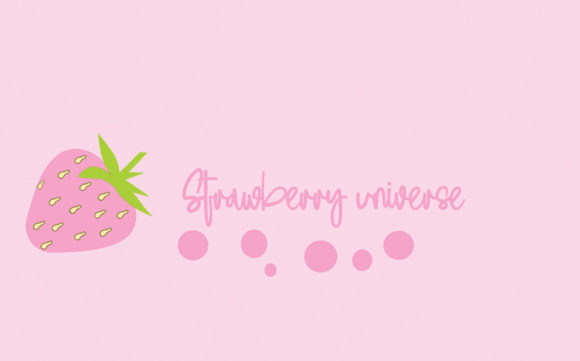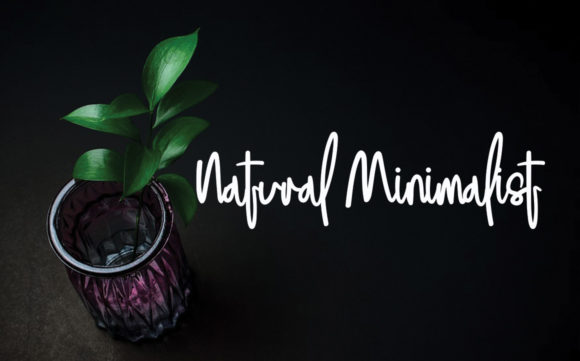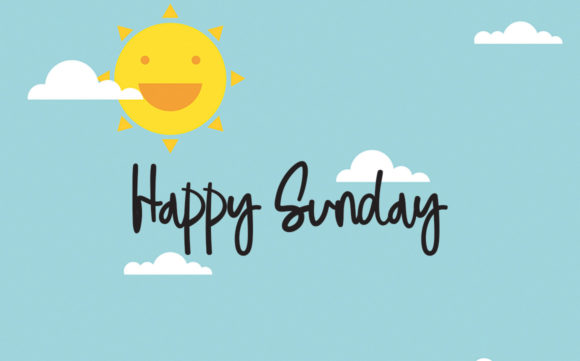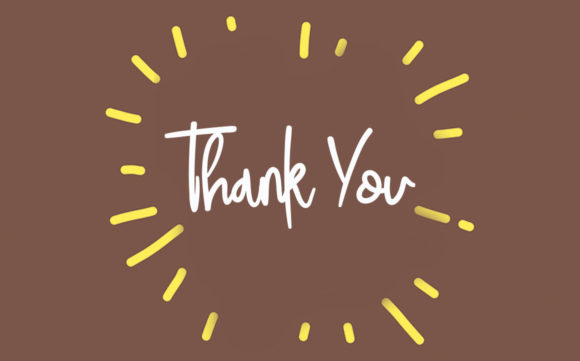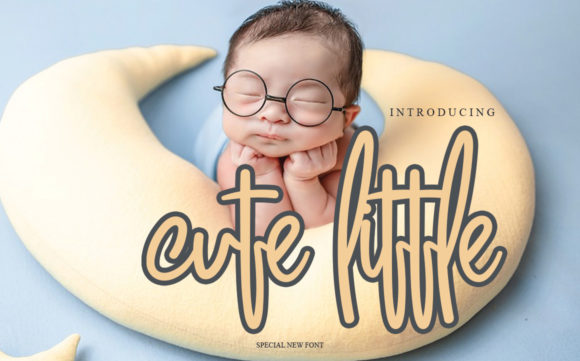
Cute Little Font: Add a Fun and Friendly Touch to Your Designs
Are you looking for a font that can add a playful and charming touch to your designs? Look no further than the Cute Little Font! This simple and flowing handwritten font is perfect for a variety of design ideas, and its adaptability makes it a great choice for designers and crafters alike.
What is Cute Little Font?
Cute Little Font is a beautiful, handwritten font that is designed to be both fun and friendly. Its simple and flowing design makes it easy to read and perfect for use in a variety of design projects, from greeting cards and invitations to blog posts and social media graphics.
Key Features of Cute Little Font
- Simple and flowing design: The Cute Little Font has a simple and flowing design that makes it easy to read and perfect for use in a variety of design projects.
- Adaptable: This font is highly adaptable and can be used in a variety of design ideas, from playful and fun designs to more serious and elegant designs.
- Handwritten style: The Cute Little Font has a handwritten style that gives it a personal and friendly touch, making it perfect for designs that need a human touch.
- Fun and friendly: This font is designed to add a fun and friendly touch to your designs, making it perfect for projects that need a playful and charming feel.
Uses for Cute Little Font
The Cute Little Font is a versatile font that can be used in a variety of design projects, including:
- Greeting cards and invitations: The Cute Little Font is perfect for use in greeting cards and invitations, adding a personal and friendly touch to your designs.
- Blog posts and social media graphics: This font is great for use in blog posts and social media graphics, adding a fun and friendly touch to your online content.
- DIY projects and crafts: The Cute Little Font is perfect for use in DIY projects and crafts, such as handmade cards, gift tags, and other paper crafts.
- Branding and packaging: This font can also be used in branding and packaging, adding a playful and charming touch to your brand’s identity.
Why Choose Cute Little Font?
There are many reasons why you should choose the Cute Little Font for your design projects. Here are just a few:
- Easy to read: The Cute Little Font is easy to read, making it perfect for use in designs where readability is important.
- Versatile: This font is highly versatile and can be used in a variety of design projects, from playful and fun designs to more serious and elegant designs.
- Unique and charming: The Cute Little Font has a unique and charming design that will add a personal and friendly touch to your designs.
Tips for Using Cute Little Font
Here are a few tips for using the Cute Little Font in your design projects:
- Use it in combination with other fonts: The Cute Little Font can be used in combination with other fonts to create a unique and interesting design.
- Experiment with different colors and textures: This font can be used with a variety of colors and textures to add depth and interest to your designs.
- Use it to add a personal touch: The Cute Little Font is perfect for adding a personal and friendly touch to your designs.
The Cute Little Font is a beautiful and versatile font that is perfect for designers and crafters alike. Its simple and flowing design makes it easy to read, and its adaptability makes it a great choice for a variety of design projects. Whether you’re looking to add a fun and friendly touch to your designs or simply want a font that is easy to read and versatile, the Cute Little Font is a great choice.